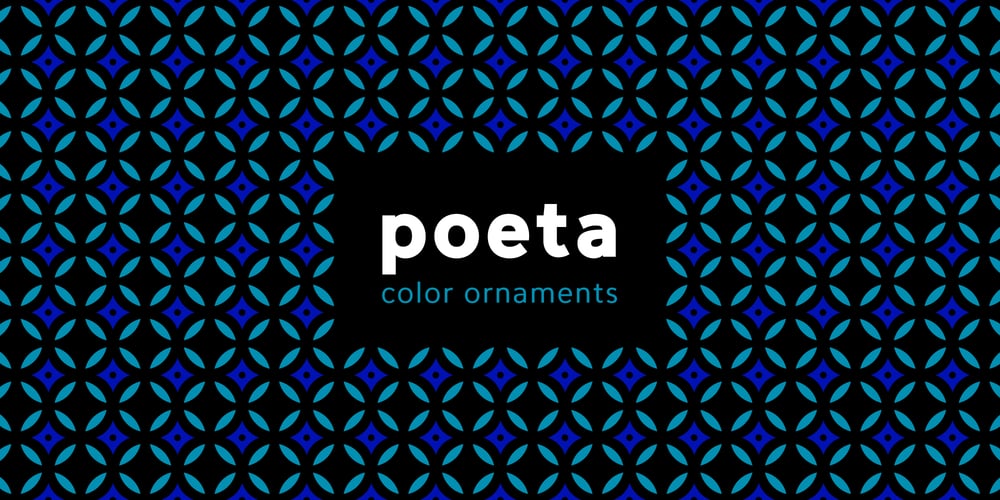
Poeta Color Font Family was designed by Donald Tarallo and published by Tarallo Design. Poeta Color contains 7 styles and family package options. Poeta Color is an ornamental font for making patterns and decorating text. It contains floral and nature motifs.The symbols are versatile enough for simple decoration or thematic seasonal and holiday moods. Designers can use Poeta to make unique lines, fields, borders, or ornamentation within or around text. Try replacing a basic straight line with repeated symbols. Make a background to add visual interest to a design. Use the forms to decorate a chapter title or to mark the end of a magazine article. Replace a letter in a word with a symbol to create a memorable statement.This font began with sketches of patterns seen in ceramic tiles around Sicily. It is named Poeta because Sicily is an island rich in poetry traditions.Below is some helpful technical information.Using this font is simple. Install it and type. Symbols will appear instead of letters. Choose the precise symbols through a software’s glyph palette. Use the type/character menu controls to vary the spacing and density of patterns. All fonts are vector-based, OpenType, and fully scalable.Six of the fonts have different color or grey combinations. One of the fonts (solid) is a standard font. The font previews on this website will only display the font in black. See the slides to get an idea of the colors. Be assured that the colors are present in the files and will appear when loaded on the computer.The colors that are in each font: Primary: red, yellow, blue Secondary: orange, green, purple Tertiary: red-orange, yellow-green, blue-violet, red-violet Diverse: many different warm and cool colors Grey: three different greys from light to dark Gradient: a greyscale gradient Solid: standard font and can be colored normally Software that supports color SVG fonts: Photoshop, since 2017 llustrator, since 2018 InDesign, since 2019 QuarkXPress, since 2018 Pixelmator Sketch